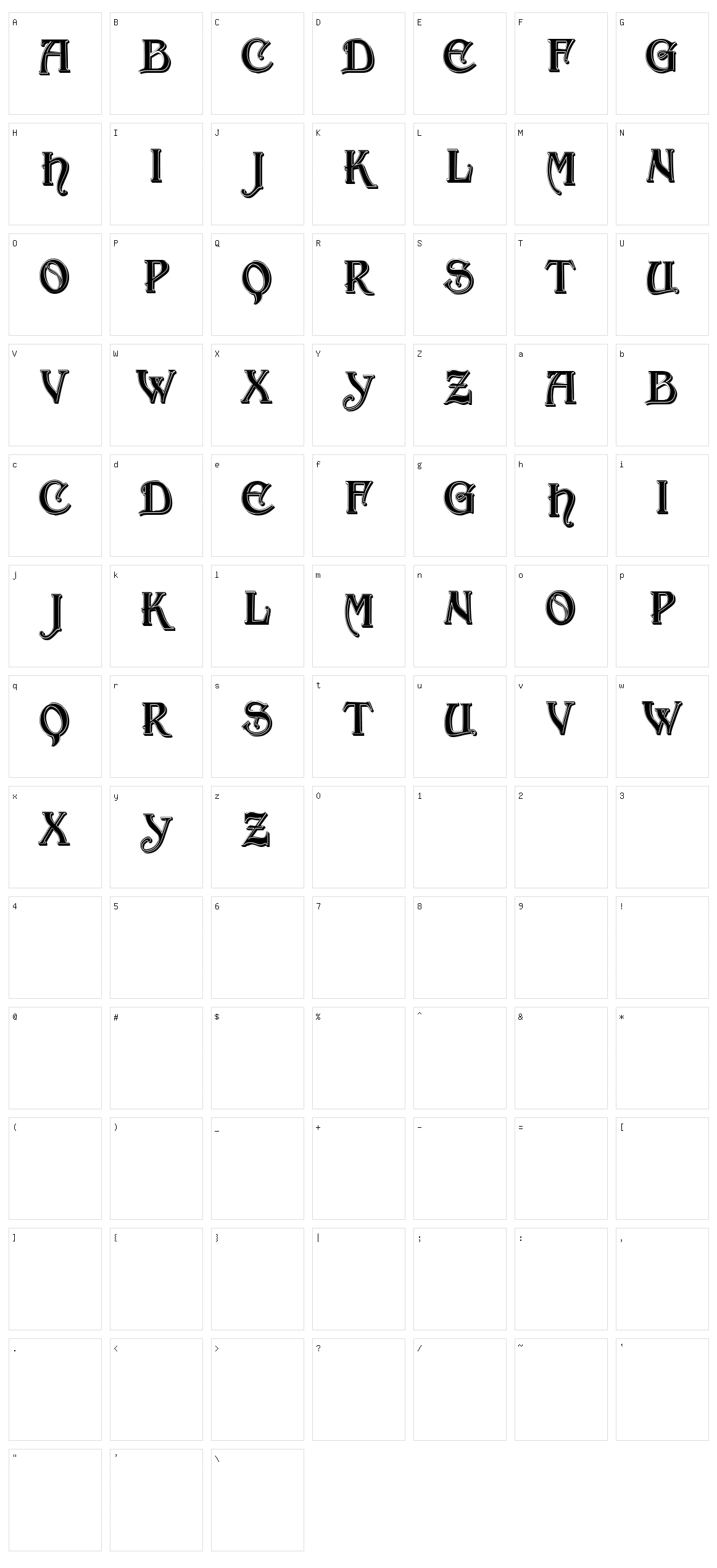
The free font Royalty Criminals is carefully designed by Vladimir Nikolic, showcasing a thoughtful balance of creativity and usability and belongs to the Gothic font family. When you download the ZIP file, it contains only 133.57 KB of font files, making it lightweight and quick to download. Please review the license details below to understand permitted usage and distribution rights. If license information is not available, we recommend using this font for personal projects only or contacting the author directly for commercial usage permissions.